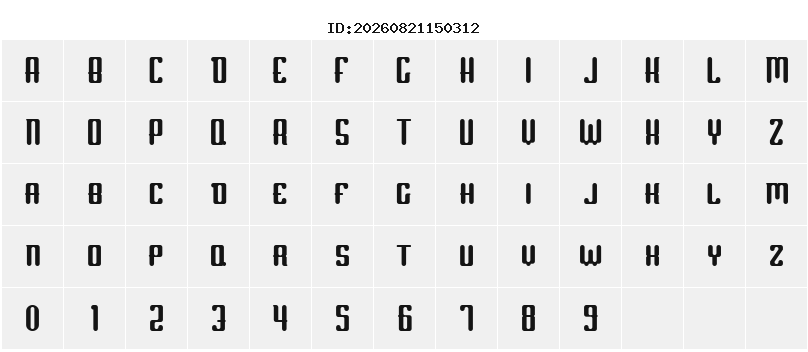
• Font Name: Scum of the Earth
About Scum of the Earth.ttf
Scum of the Earth.ttf is a modern, elegant sans-serif font designed for ultimate readability and visual harmony. Perfect for branding, headlines, web design, and print materials.